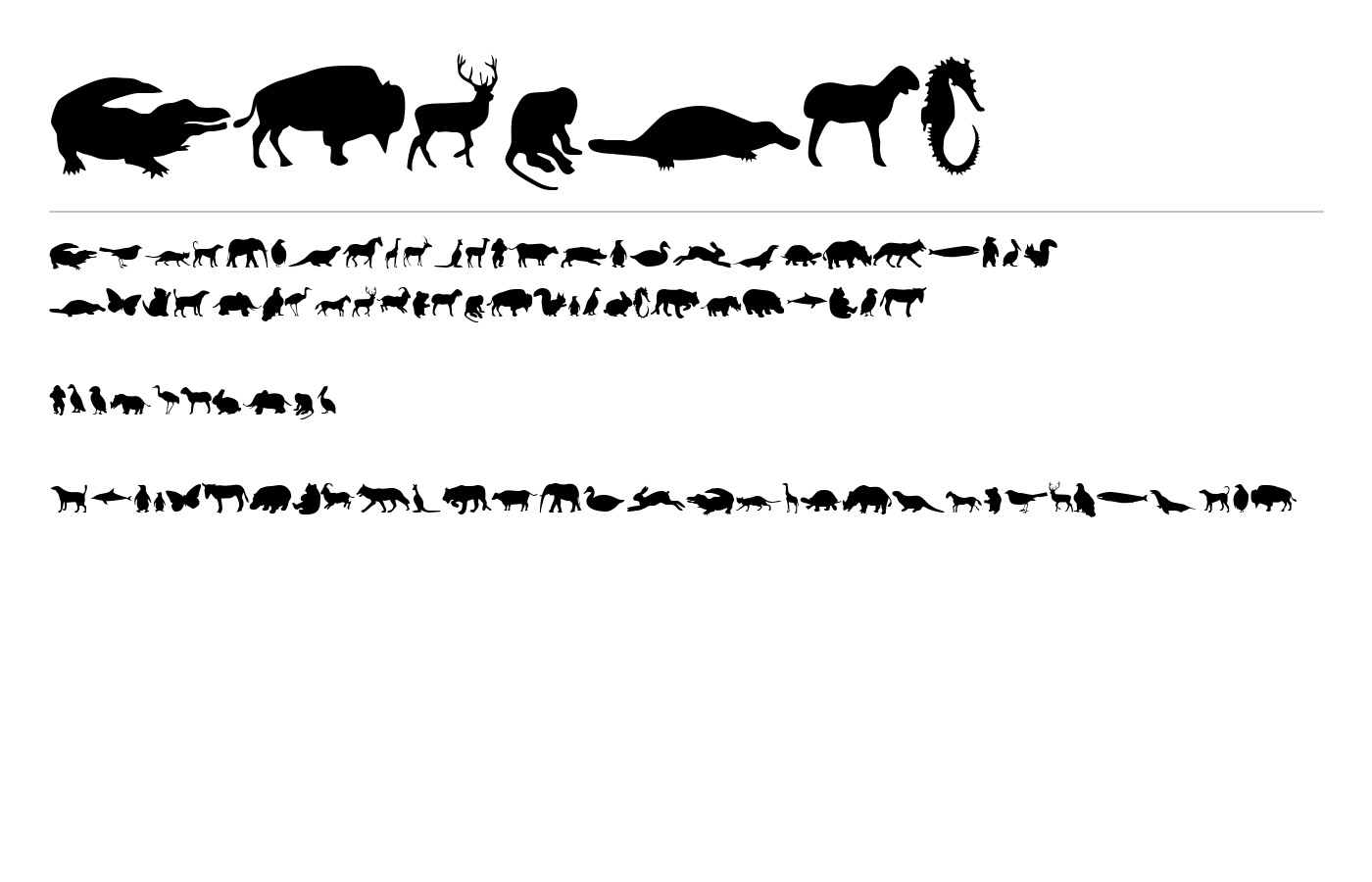
Animals Font is a playful and distinctive symbol font featuring detailed black silhouettes of various animals. Perfect for creative projects, educational materials, or nature-themed designs, it adds a fun and natural touch without traditional letterforms. This font works best for headlines, logos, and decorative accents where visual impact and character are key.
Animals Font
About Animals Font